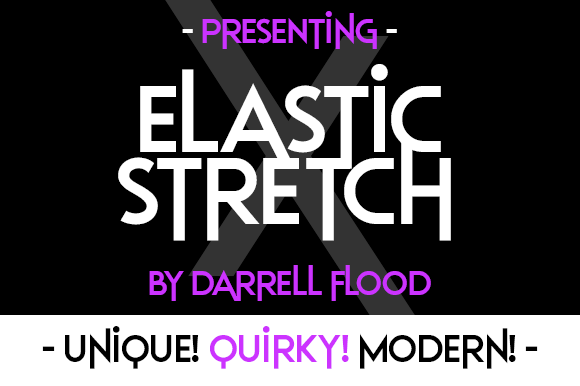
Introduction to Elastic Stretch Font
Have you ever stared at a blank canvas, brainstorming ideas for your next creative project? The cursor blinks on your screen, waiting for that perfect spark of inspiration. That’s where the right design resource can make all the difference. Enter the Elastic Stretch Font – a clean and modern display font that’s about to take your creative ideas to the next level.
With its versatility and sleek design, the Elastic Stretch Font is the perfect addition to any project. Whether you’re working on a logo, brochure, or social media campaign, this font is sure to make your design stand out. Plus, with a high-quality, transparent background, you can easily customize it to fit your needs. And the best part? You can download it for free, making it an invaluable resource for designers of all levels.
So why settle for a generic font when you can elevate your creative project with the Elastic Stretch Font? Its unique design and flexibility make it a valuable asset for any designer looking to take their work to new heights.
Key Features of Elastic Stretch Font
- Unique characteristic: The Elastic Stretch Font features an elastic and stretchy design, allowing for creative and flexible use in various design contexts.
- Perfect for use in graphic design, digital art, and other creative projects where a dynamic and flexible font is required.
Honest Review: Elastic Stretch Font
I recently had the chance to experiment with the Elastic Stretch Font, and I must say it’s been a game-changer for my design projects. This free download has quickly become a go-to resource for adding a touch of creativity to my work.
- What works well: ✨ The high quality of the font is immediately noticeable, with crisp lines and a smooth texture that looks great on both light and dark backgrounds.
- What works well: ✨ I also appreciate the transparent background option, which allows me to easily customize the font to fit my design needs.
- What works well: ✨ The Elastic Stretch Font is incredibly versatile, making it a great addition to any creative project.
That being said, there are a few limitations to keep in mind:
- ⚠️ The font may not be suitable for all types of projects, particularly those requiring a more formal or traditional look.
- ⚠️ Additionally, some users may find the font’s unique style to be overwhelming or difficult to read in certain contexts.
Overall, I’m really impressed with the Elastic Stretch Font and would highly recommend it to designers looking for a high-quality, creative solution for their projects.
Elastic Stretch Font
The Elastic Stretch Font is a versatile and high-quality design resource that can be used in a variety of creative projects. This free download features a transparent background, making it easy to integrate into your design.
Tips for Getting the Most Out of Elastic Stretch Font
Here are a few tips for getting the most out of the Elastic Stretch Font:
- Combine the Elastic Stretch Font with other design elements to create a visually appealing design.
- Use the font in conjunction with a transparent background to create a seamless design.